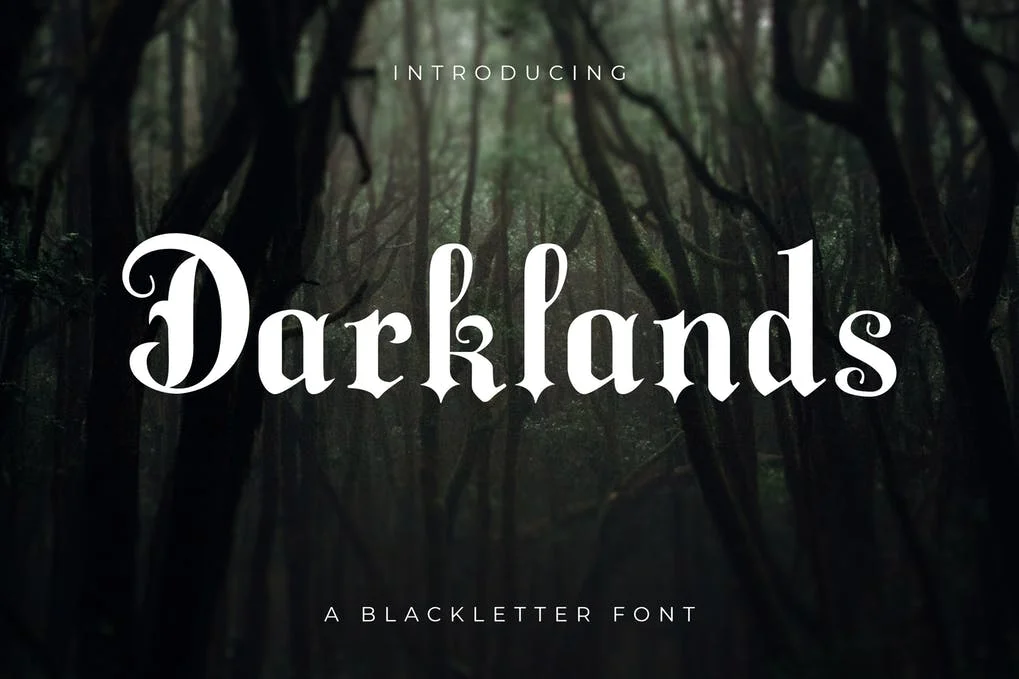
Darklands – A Blackletter Font
Darklands – A Blackletter Font is perfect for gothic band logos, medieval fantasy game titles, dark beer brewery branding, tattoo shop signage, heavy metal album covers, gothic fashion labels, mysterious book covers, dark fantasy movie titles, occult-themed materials, and dramatic poster designs.
Darklands – A Blackletter Font is exciting because it masterfully captures the dark mystique and dramatic power of traditional blackletter typography, creating a typeface that embodies gothic elegance, medieval mystery, and the haunting beauty of ancient Germanic script traditions. This font brings dramatic sophistication and gothic authenticity to any project, making it ideal for brands that want to convey strength, tradition, and the compelling allure of dark aesthetics. Its bold character and mysterious appeal create an atmosphere of gothic grandeur that resonates with audiences drawn to powerful, dramatic visual expression.
Darklands – A Blackletter Font family includes regular, bold, ornate, and distressed variations, plus gothic flourishes, medieval decorations, and dark ornamental elements, providing designers with comprehensive tools for creating authentic blackletter typography and dramatically gothic brand experiences.
This powerful gothic typeface combines traditional blackletter craftsmanship with contemporary design functionality, making Darklands – A Blackletter Font Free Download an outstanding choice for projects celebrating gothic culture and dramatic visual impact. The font's dramatically crafted letterforms feature authentic blackletter proportions and gothic styling that honor the centuries-old tradition of Germanic calligraphy and medieval manuscript art.
Whether you're designing metal music branding, gothic fashion campaigns, or mysterious entertainment materials, Darklands – A Blackletter Font delivers unmatched gothic authenticity and dramatic appeal. The font excels in both large-scale environmental applications and detailed gothic designs where traditional blackletter character and dark aesthetics create memorable atmospheric experiences.
Gothic design professionals choose Darklands – A Blackletter Font for its ability to instantly communicate gothic tradition and dramatic power while maintaining the authenticity required for genuine blackletter applications. The font's dark character makes it particularly effective for metal bands, gothic retailers, and dark entertainment venues.
Each character reflects the dramatic artistry of medieval scribes, featuring bold blackletter construction and gothic styling that creates typography as powerful and memorable as ancient cathedral inscriptions and illuminated gothic manuscripts.